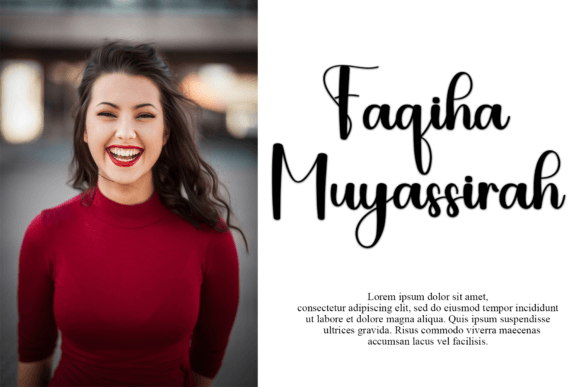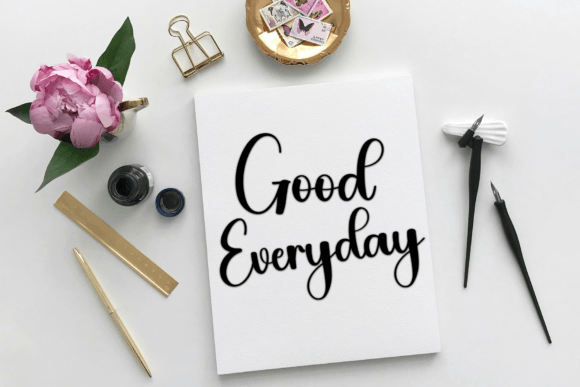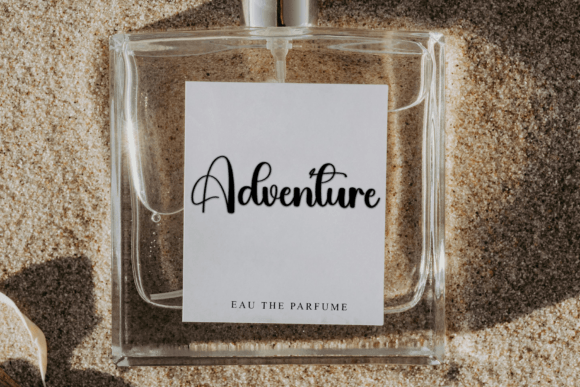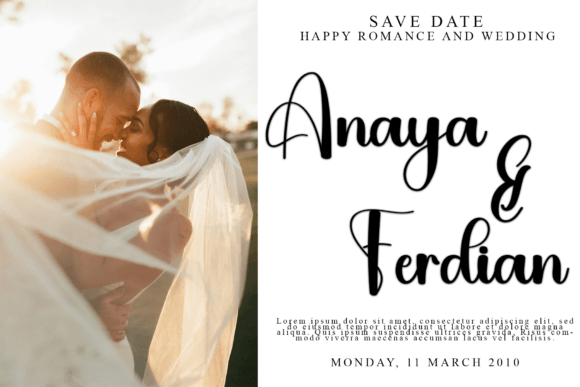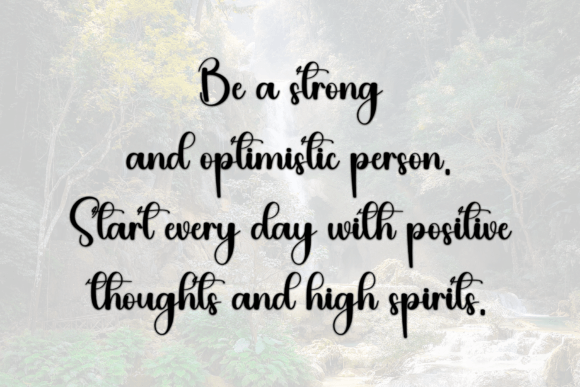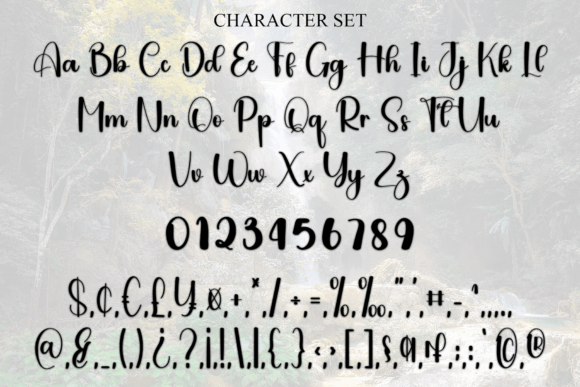
Introducing Autography Font: The Perfect Blend of Freshness and Elegance
Are you tired of using the same old fonts for your design projects? Look no further than Autography, a charming handwritten font that brings a sense of freshness and casual elegance to any design. With its fluid strokes and organic lines, Autography is the perfect choice for designers and crafters looking to add a touch of warmth and personality to their work.
The Characteristics of Autography Font
Autography is a unique and versatile font that boasts a range of characteristics that make it perfect for various design projects. Some of its key features include:
- Fluid strokes: Autography’s fluid strokes give it a natural and effortless look that’s perfect for creating a laid-back vibe.
- Organic lines: The font’s organic lines add a touch of warmth and personality to any design, making it perfect for projects that require a human touch.
- Casual elegance: Autography’s casual elegance makes it perfect for designs that require a touch of sophistication without being too formal.
Uses of Autography Font
Autography is a versatile font that can be used for a wide range of design projects, including:
- Branding: Use Autography to create a unique and memorable brand identity that stands out from the crowd.
- Invitations: Add a touch of elegance and sophistication to your invitations with Autography’s fluid strokes and organic lines.
- Social media graphics: Use Autography to create eye-catching social media graphics that showcase your personality and style.
- Packaging design: Autography is perfect for packaging design, adding a touch of warmth and personality to any product.
Benefits of Using Autography Font
There are many benefits to using Autography font in your design projects, including:
- Uniqueness: Autography is a unique font that will help your designs stand out from the crowd.
- Versatility: The font’s versatility makes it perfect for a wide range of design projects.
- Ease of use: Autography is easy to use and can be easily integrated into any design project.
Tips for Using Autography Font
Here are some tips for using Autography font in your design projects:
- Use it sparingly: Use Autography sparingly to create a focal point in your design.
- Pair it with other fonts: Pair Autography with other fonts to create a unique and visually appealing design.
- Keep it simple: Keep your design simple and clean to let Autography shine.
Autography font is a charming handwritten font that’s perfect for designers and crafters looking to add a touch of freshness and elegance to their work. With its fluid strokes and organic lines, Autography is the perfect choice for a wide range of design projects, from branding and invitations to social media graphics and packaging design. So why not give Autography a try and see how it can elevate your designs?